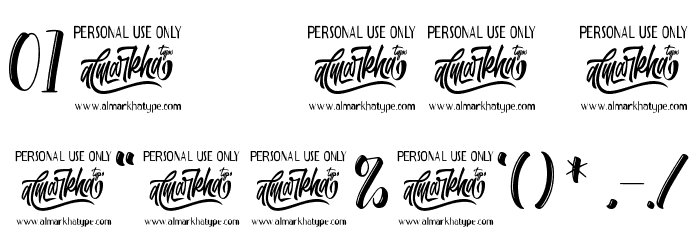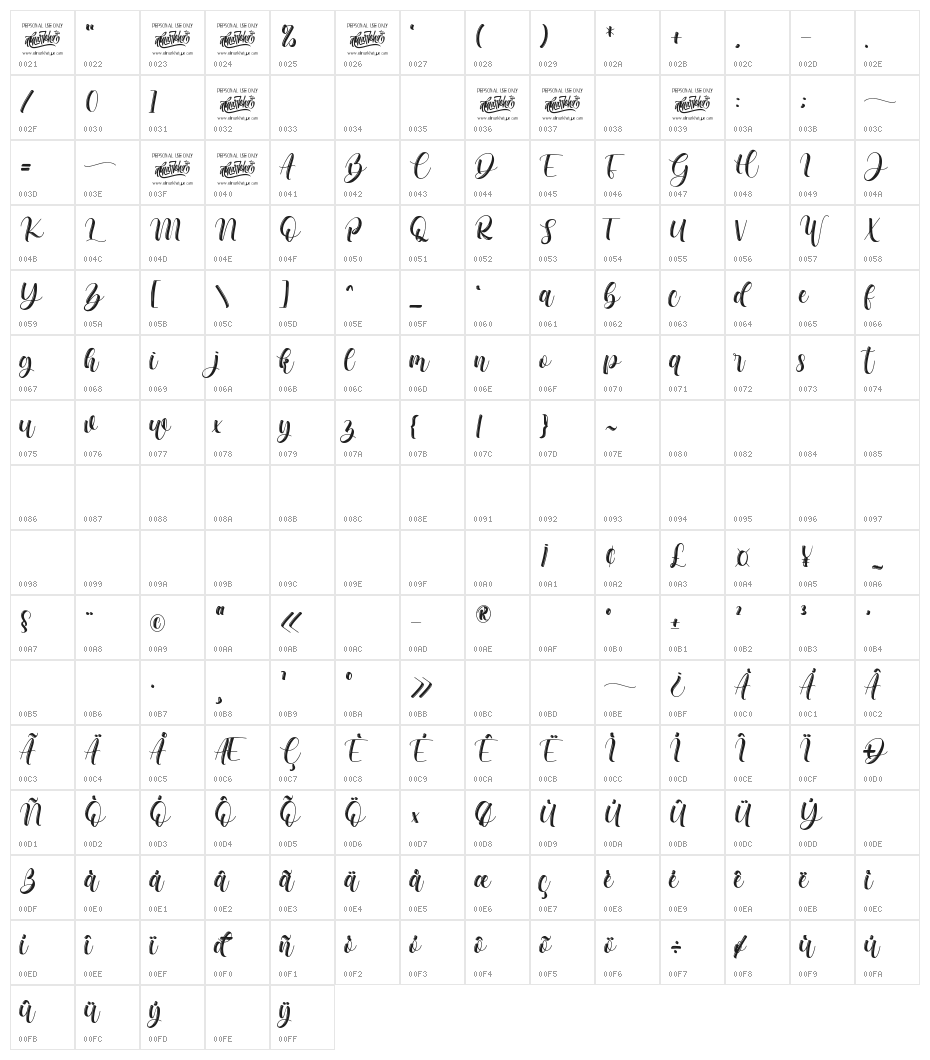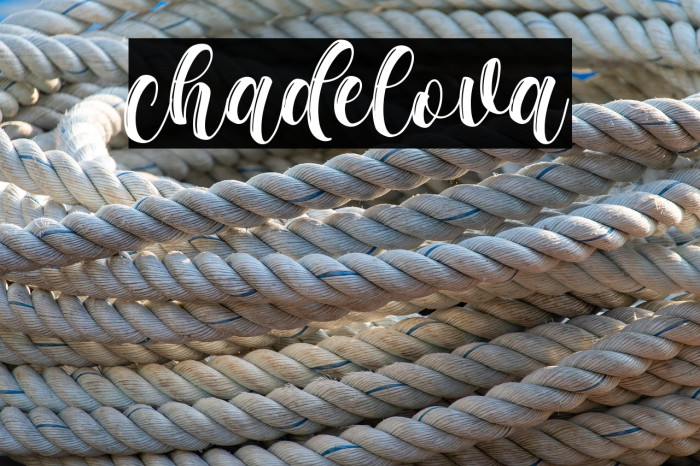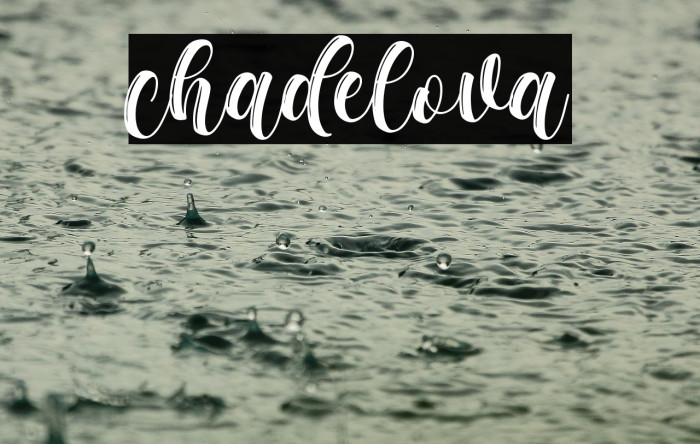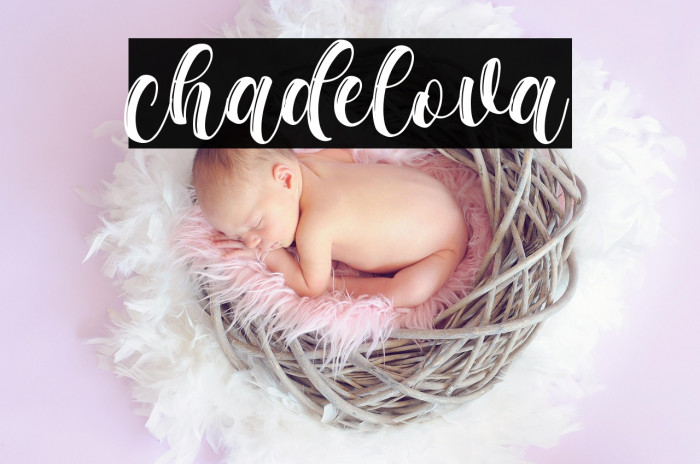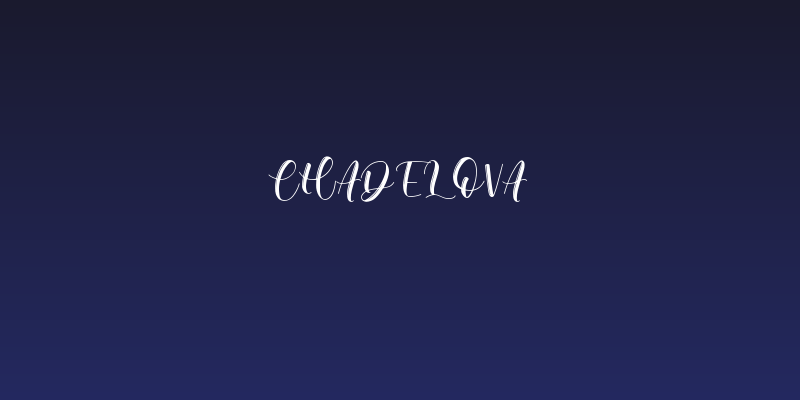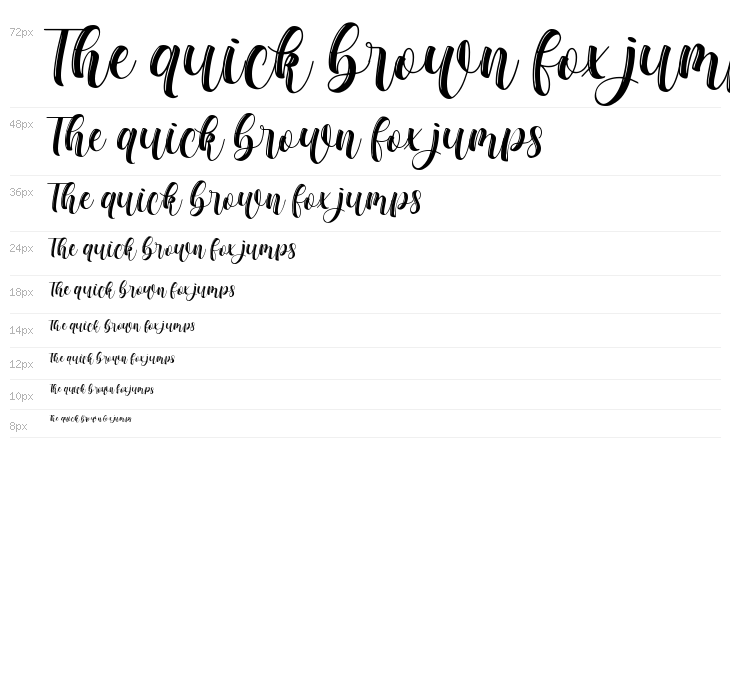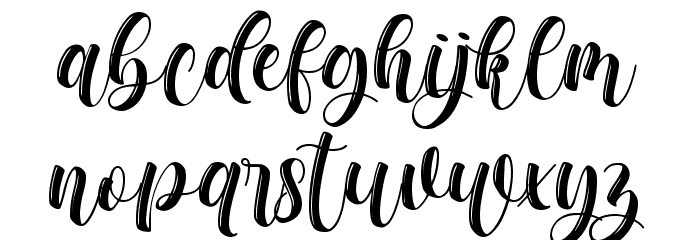
chadelova Font
chadelova Description
This font features a flowing, cursive style with elegant, sweeping strokes that give it a handwritten appearance. The letters are connected, creating a seamless and fluid look. The uppercase characters are bold and expressive, while the lowercase letters maintain a consistent rhythm and balance. The numbers and special characters follow the same stylistic approach, ensuring uniformity across all elements. This font exudes a sense of sophistication and charm, making it ideal for projects that require a personal touch.
| Use Case | Logos, Invitations, Decorative Text |
| Proposed Projects | Ideal for wedding invitations, greeting cards, personal branding, and decorative signage. |